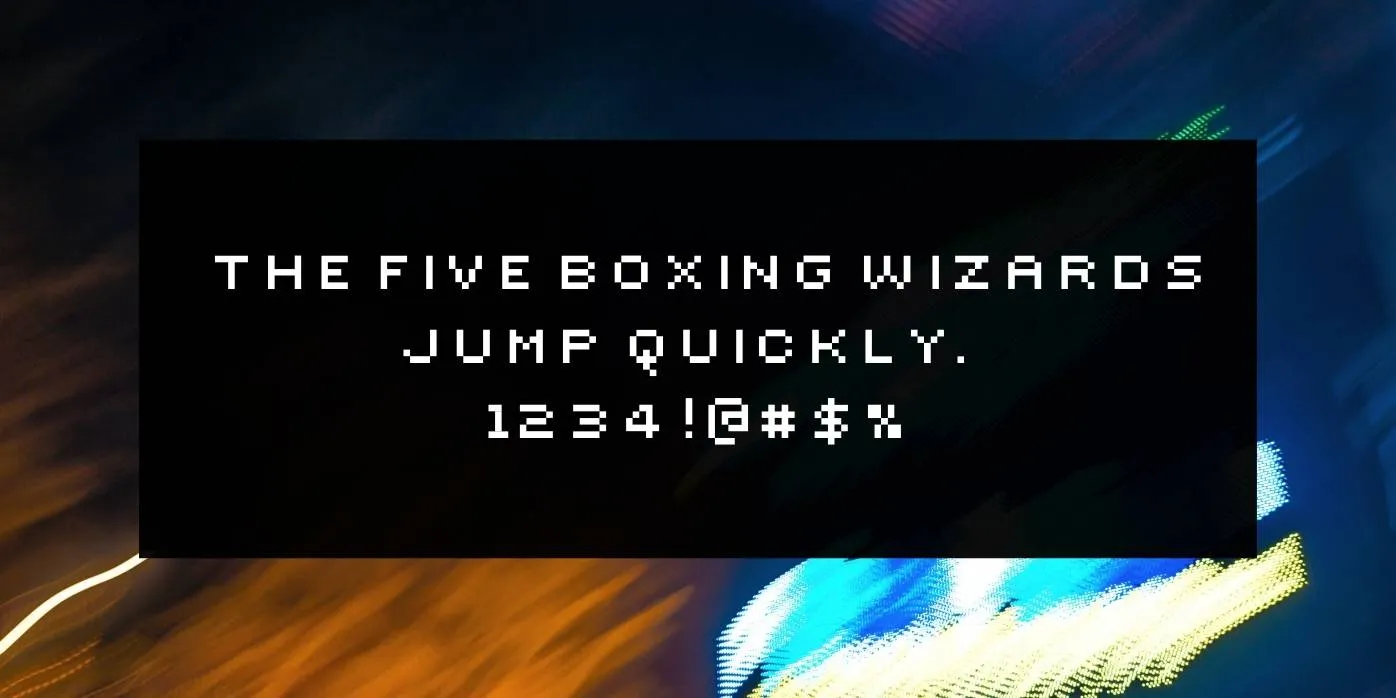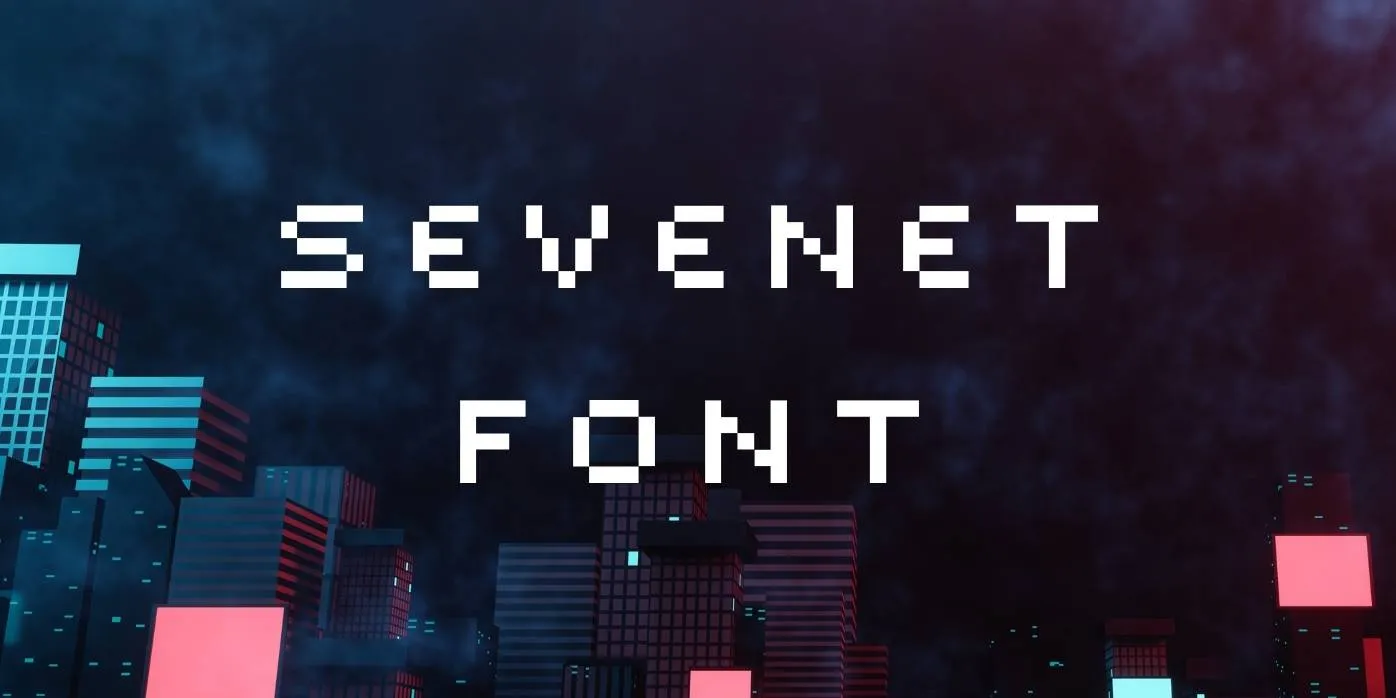
Sevenet Font
Sevenet Font is a retro font that was created by Ray larabie. The font is inspired by the classic 7-segment displays used on early calculators and digital watches. The font includes both uppercase and lowercase letters, as well as numbers and punctuation marks. It is also known for its immense language support same as the minecraft font and it can support many different international alphabets.
This font is also easily utilized in Adobe editing software such as photoshop, illustrator, and Canva. This Font has bizarre characters and straight lines that give it a modern look. The font is perfect for headlines, titles, and short blocks of text. It can also be used for longer blocks of text but is best used in moderation.